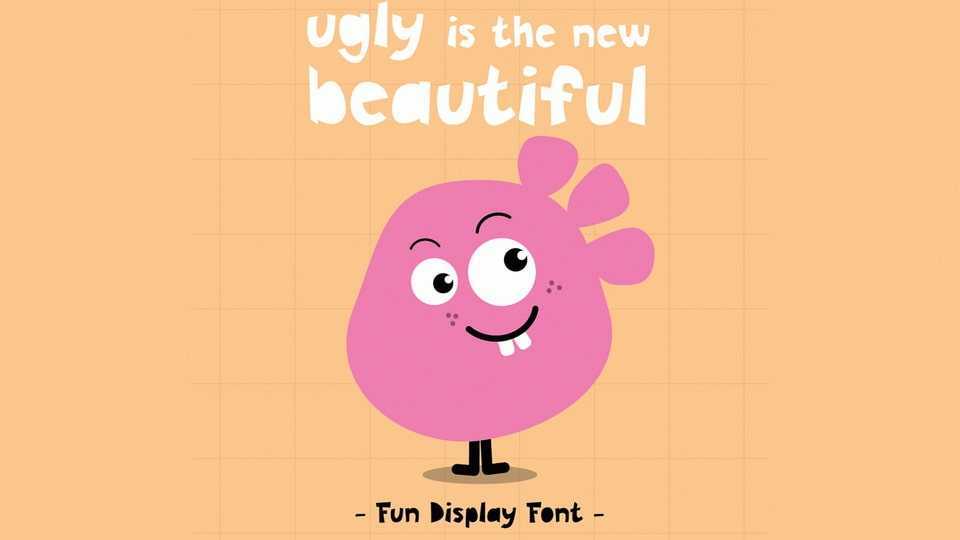
Download Ugly Cut font, a playful and quirky hand-crafted typeface inspired by the charm of cut-out letters and paper craft, bringing a joyful DIY aesthetic to your designs.
Designer: Ollie